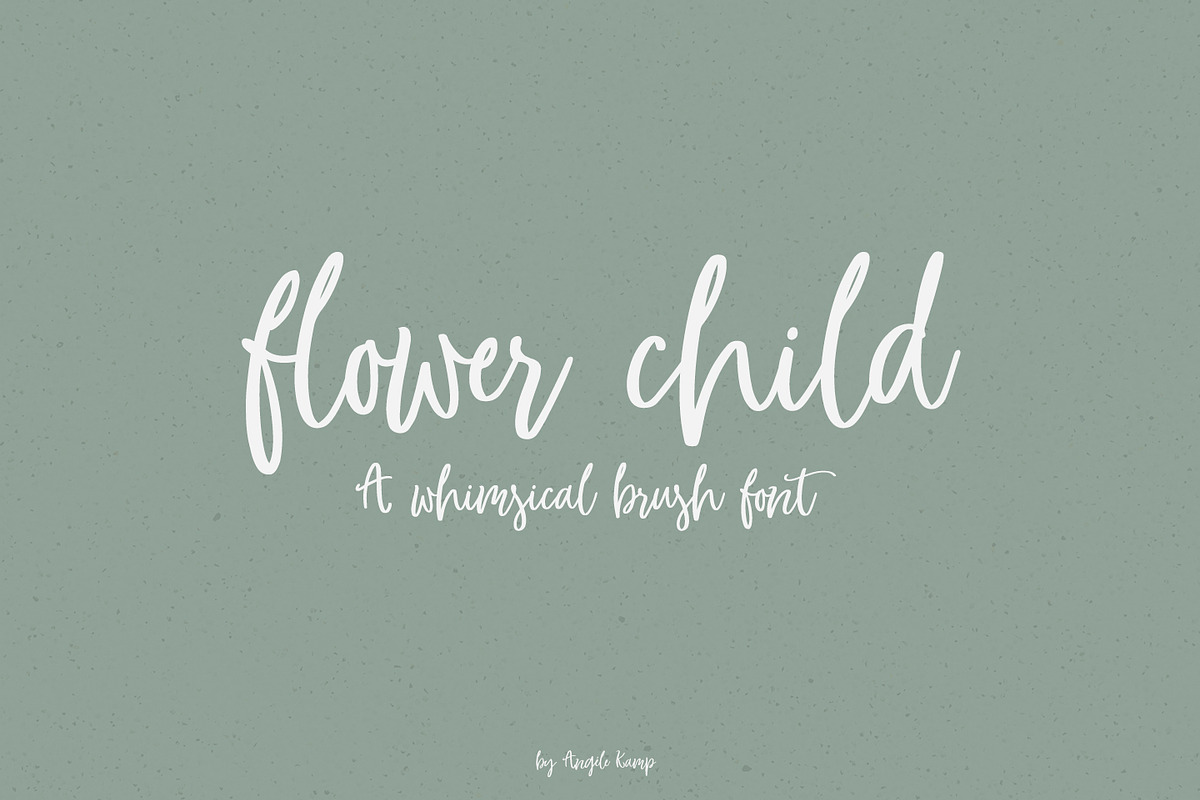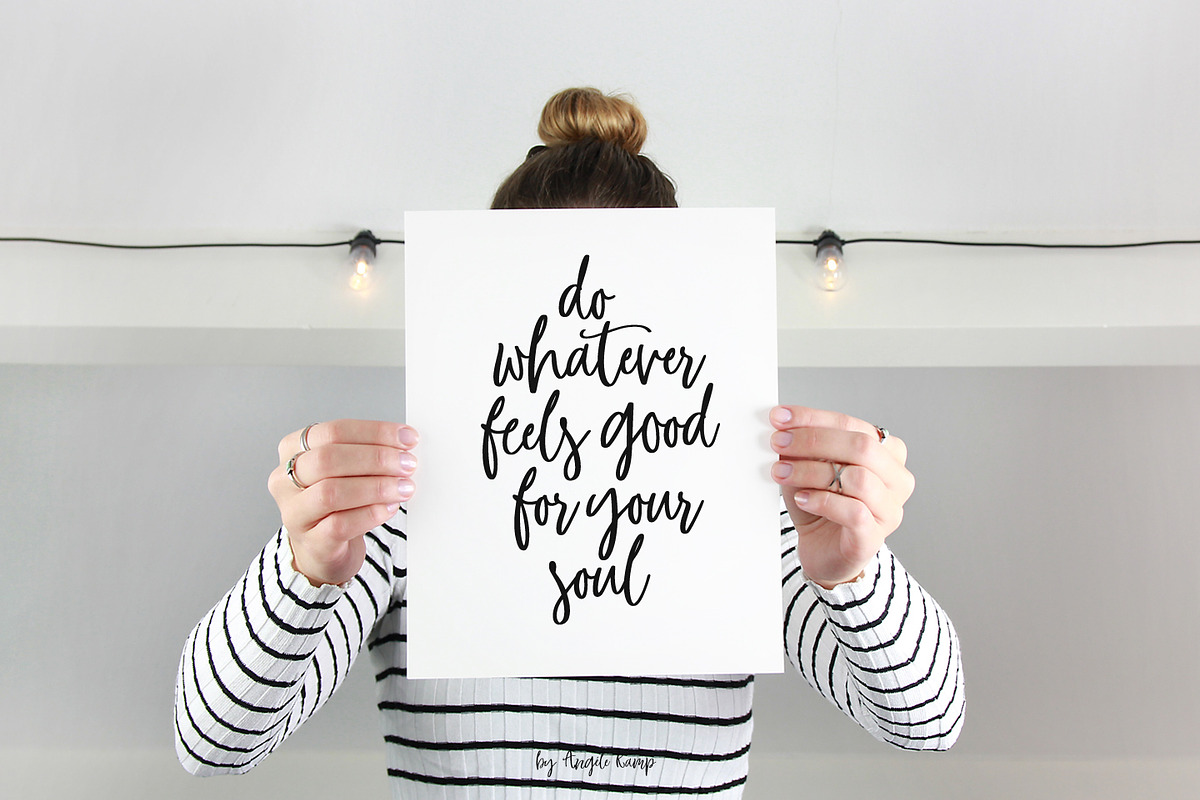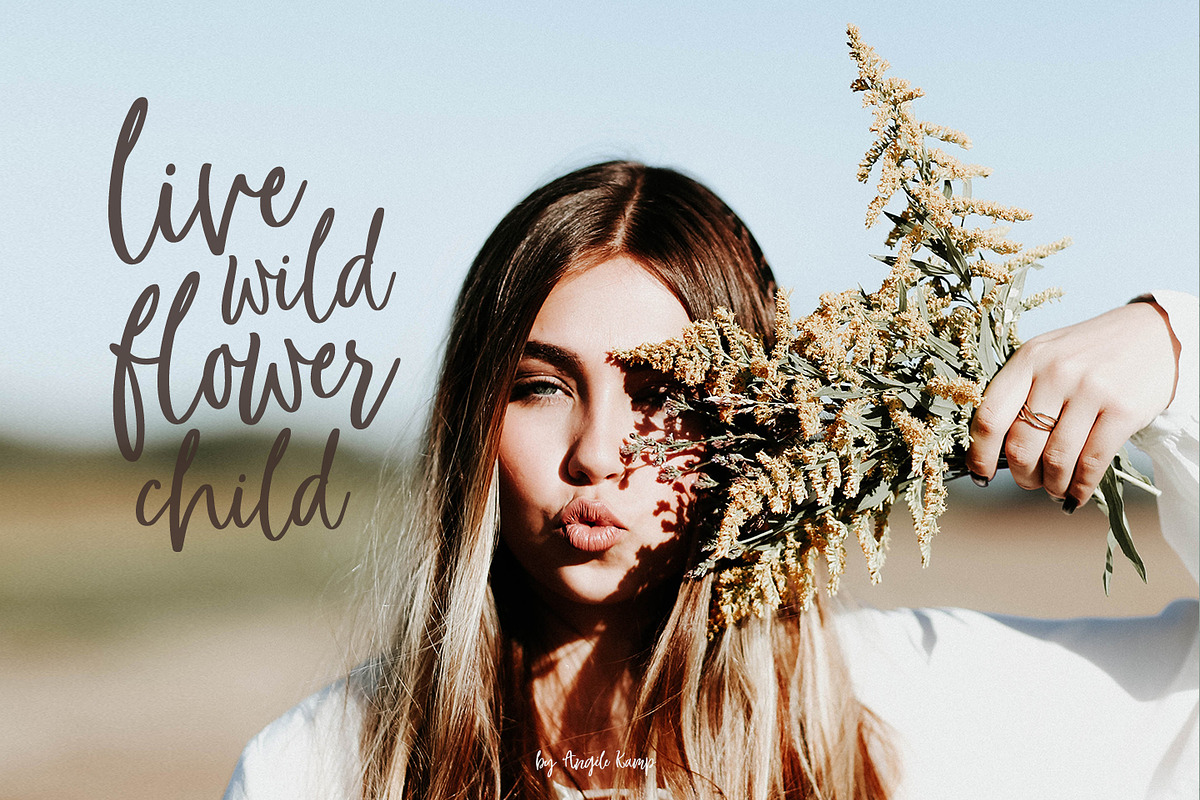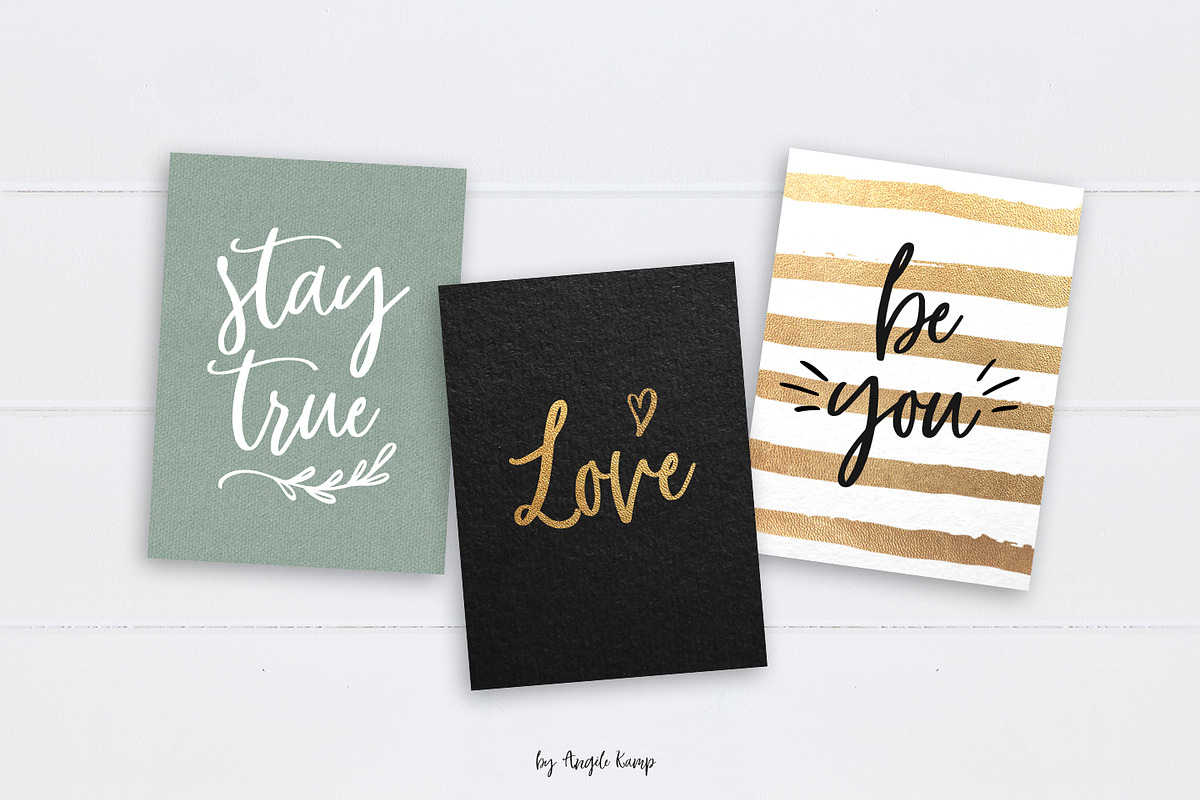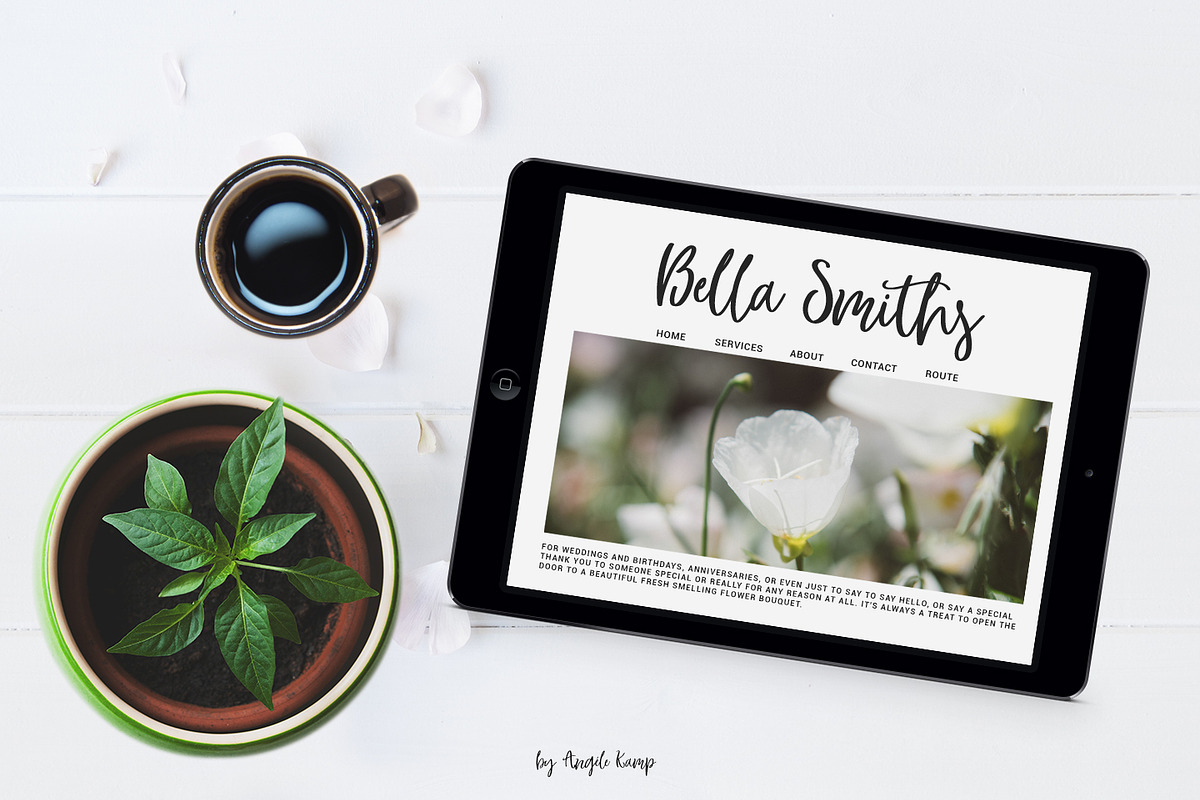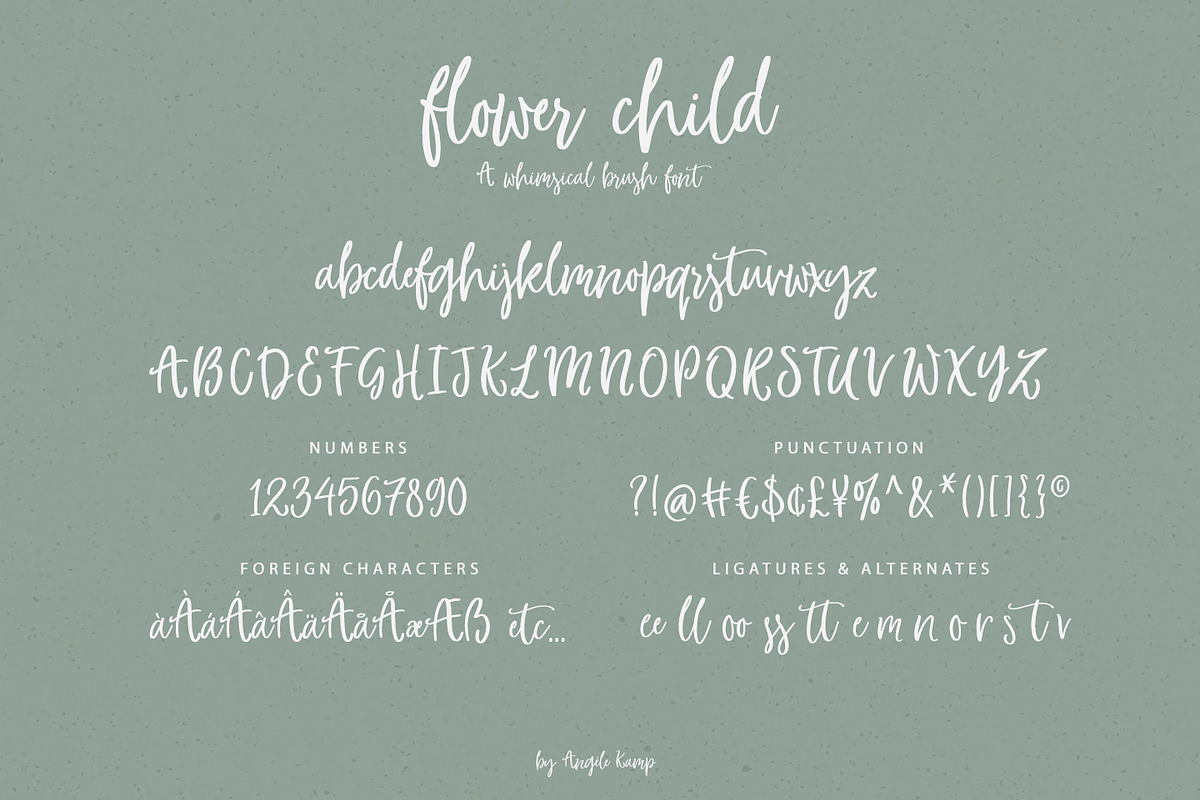
Flower Child whimsical brush font
Flower Child whimsical brush font by Angele Kamp is a font selected for branding, posters, packaging, typography.
- WHAT'S INCLUDED Flower Child contains standard characters, lowercase, uppercase, numbers, punctuation, ligatures & international characters.
Why Flower Child whimsical brush font is worth a look
Flower Child whimsical brush font by Angele Kamp fits naturally into Branding, posters, packaging, typography.